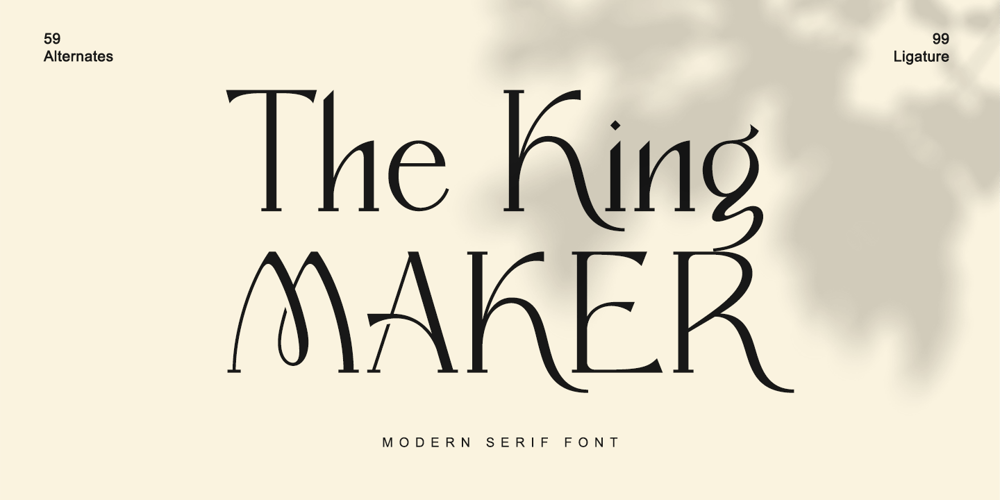
The King Maker Font Family was designed by Thomas Aradea and published by Letterara. The King Maker contains 2 styles and family package options. The King Maker is a modern serif font family with a unique style. It has a modern and vintage look. this font is suitable for many projects, modern or even retro vintage design, branding, crafting, sticker, sublimation, wedding invitation, advertising, vintage mood boards, logotype, packaging, titles, editorial design, and many more. This font is PUA encoded, which means you can easily access all of the glyphs and swashes!